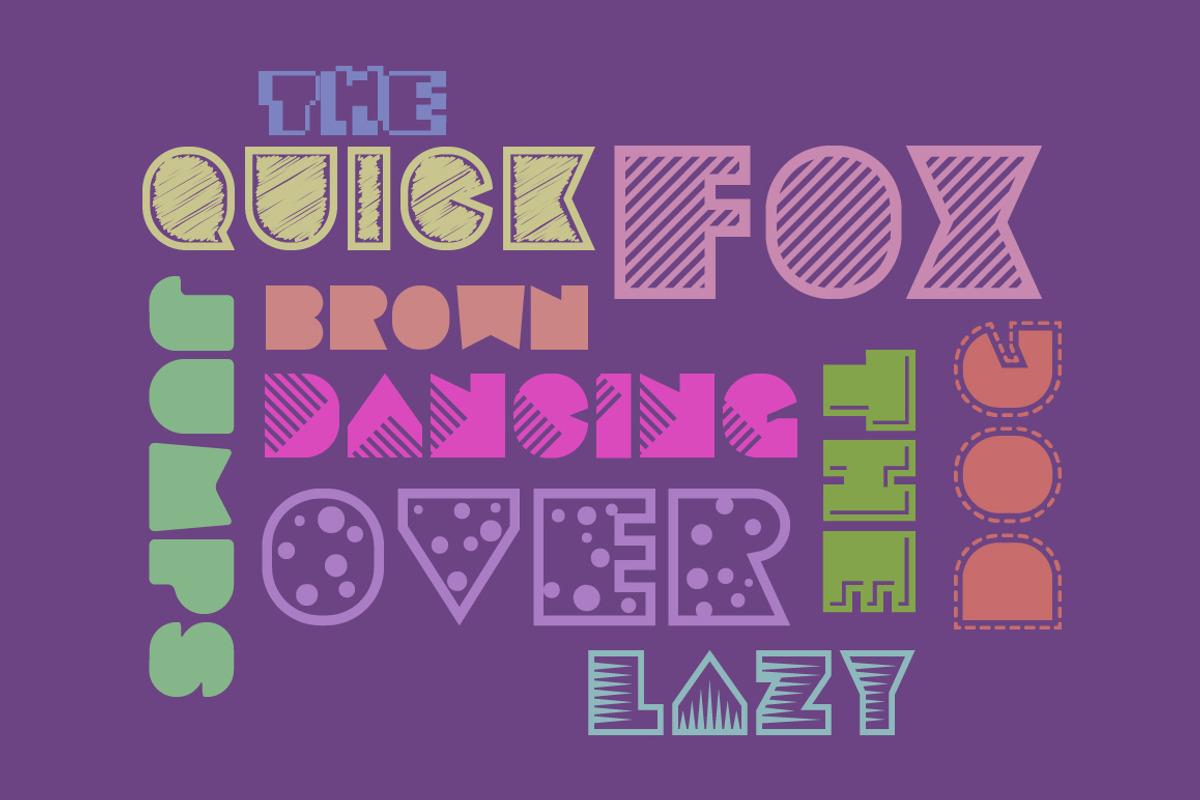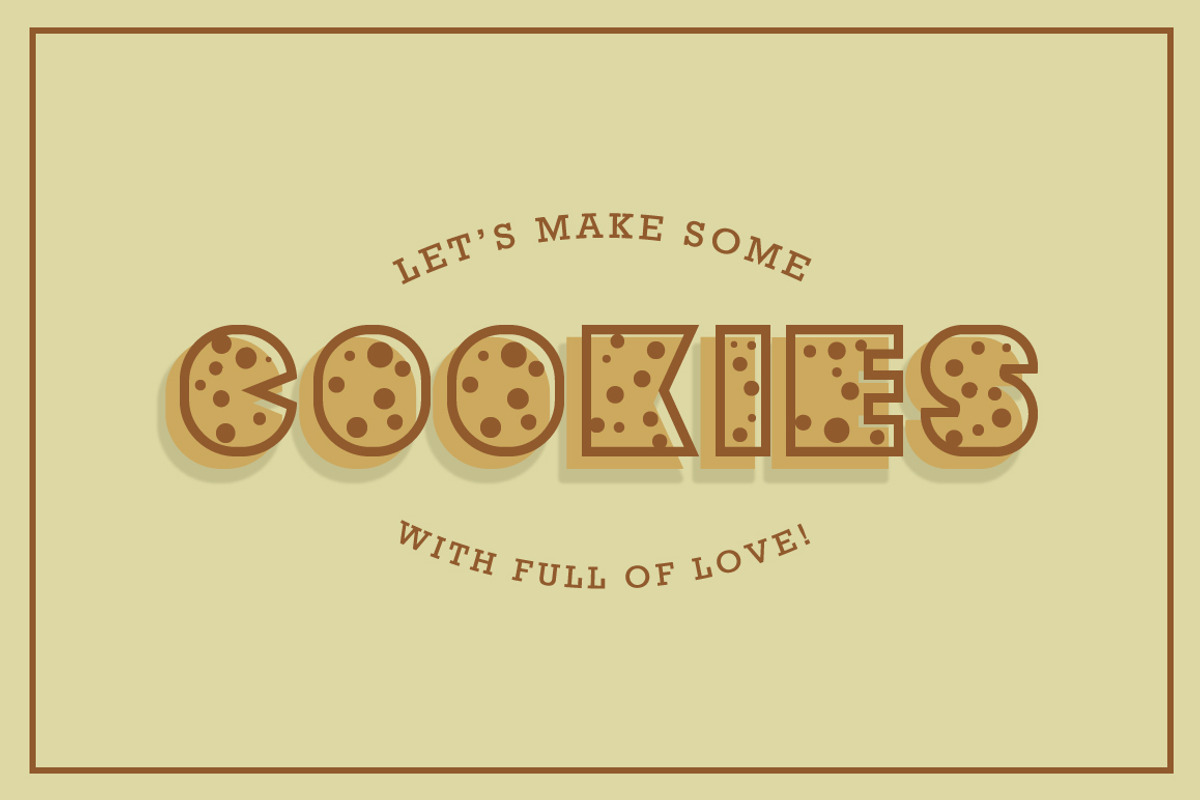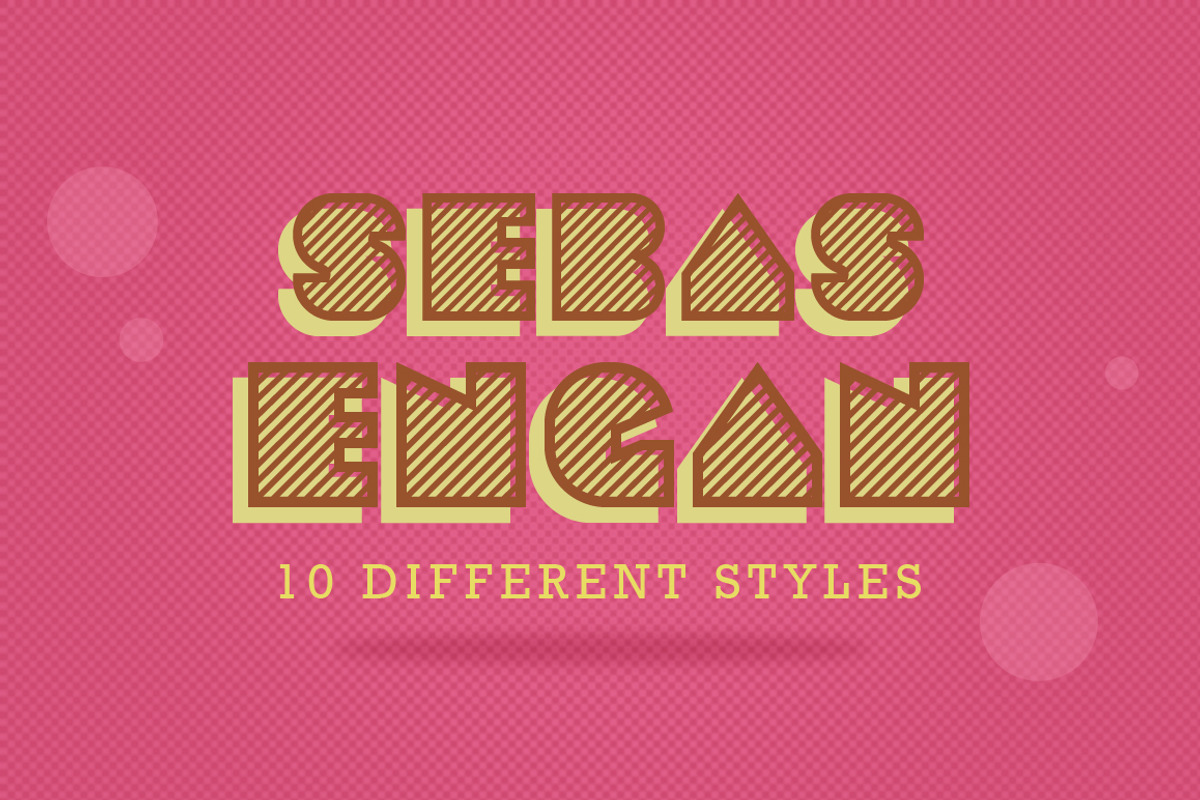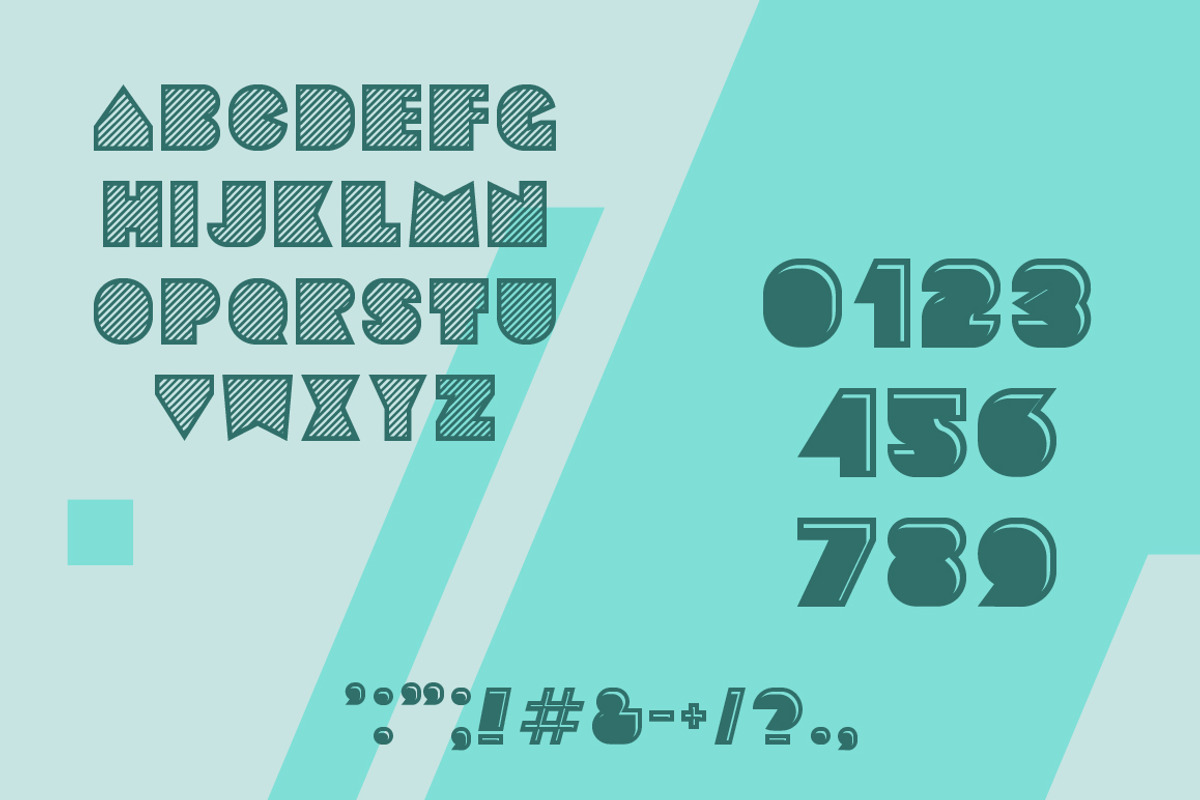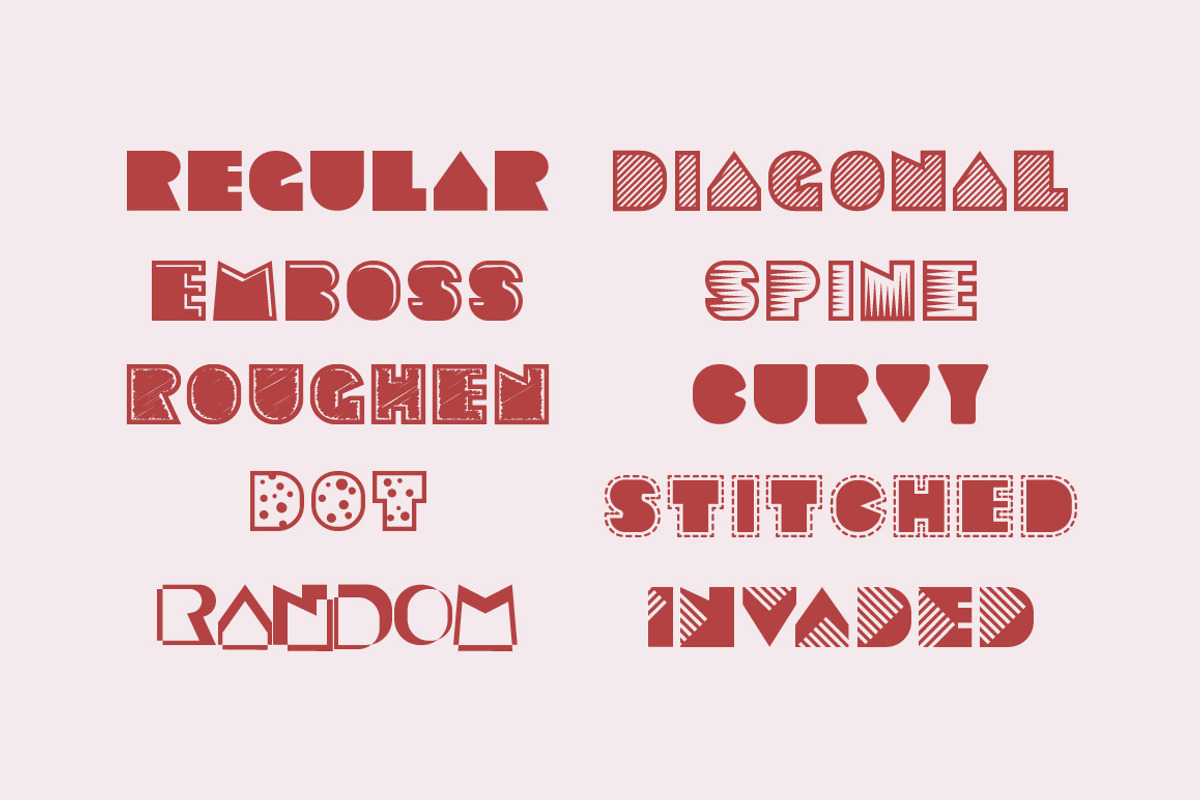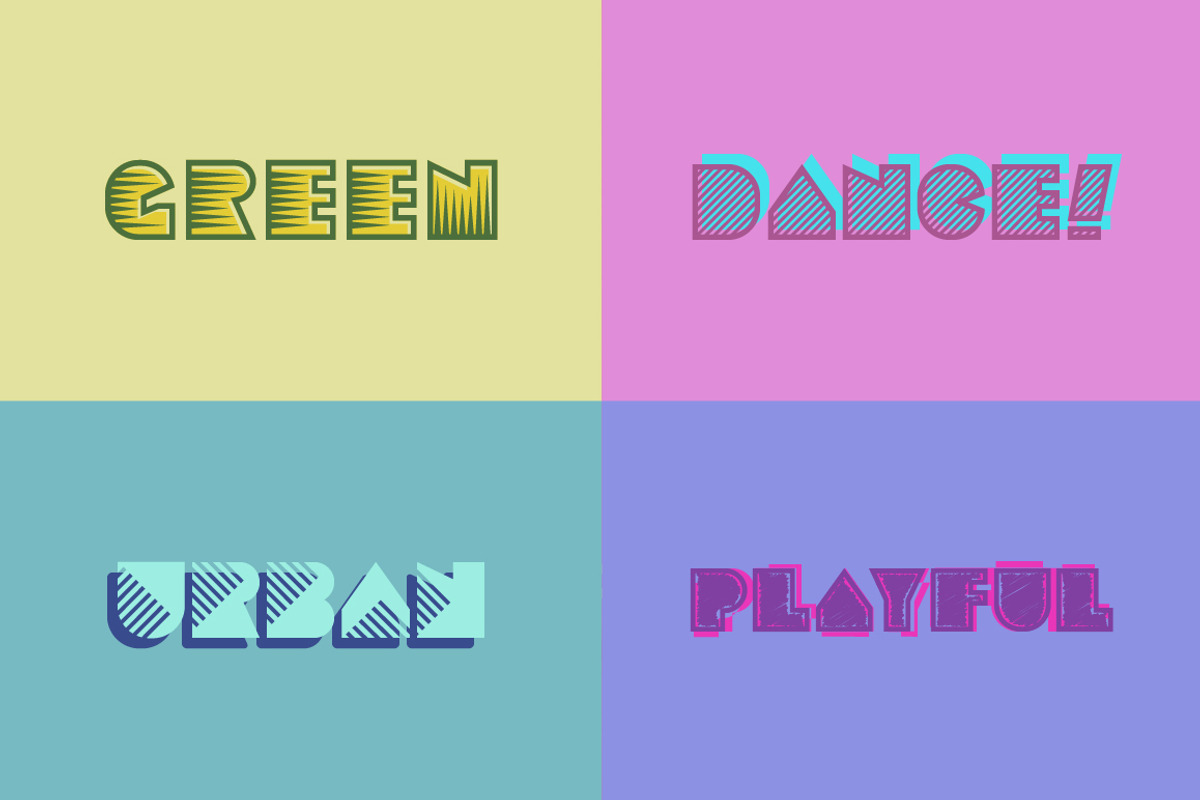
Sebasengan Font Pack
Hello! Introducing Sebasengan Font Pack the refinement from our previous font 'Basenglah' (crmrkt.com/NPN5). With 10 different styles! Create your own joy with this pack. Very recommended for your headline - in your poster, flyer, brochure, sticker and etc. Pop, Urbanic, Doodle, Elegance, Joyful and experimental taste.
- Sebasengan-Regular
- Sebasengan-Curvy
- Sebasengan-Emboss
- Sebasengan-Invaded
- Sebasengan-Roughen
- Sebasengan-Spine
- Sebasengan-Stitched
- Sebasengan-Dot
- Sebasengan-Random
- Sebasengan-Diagonal